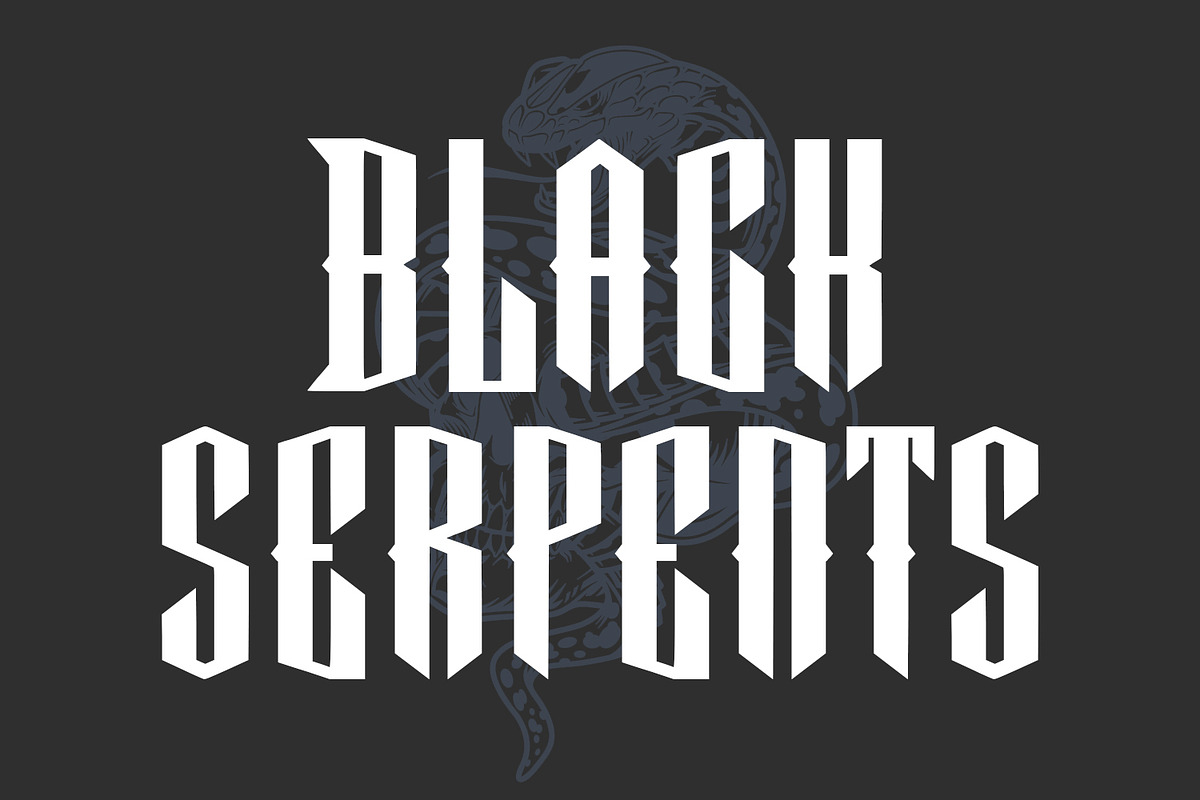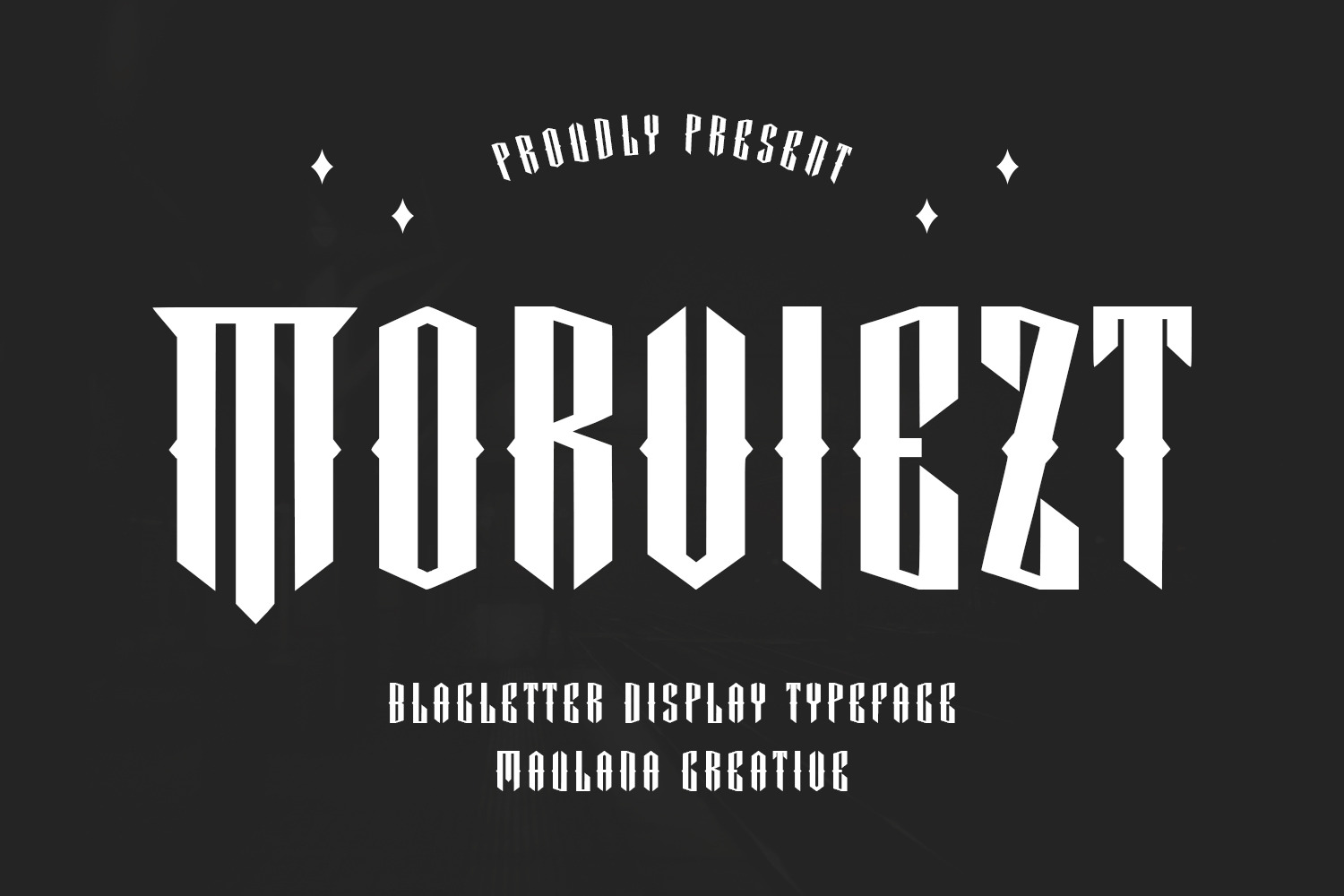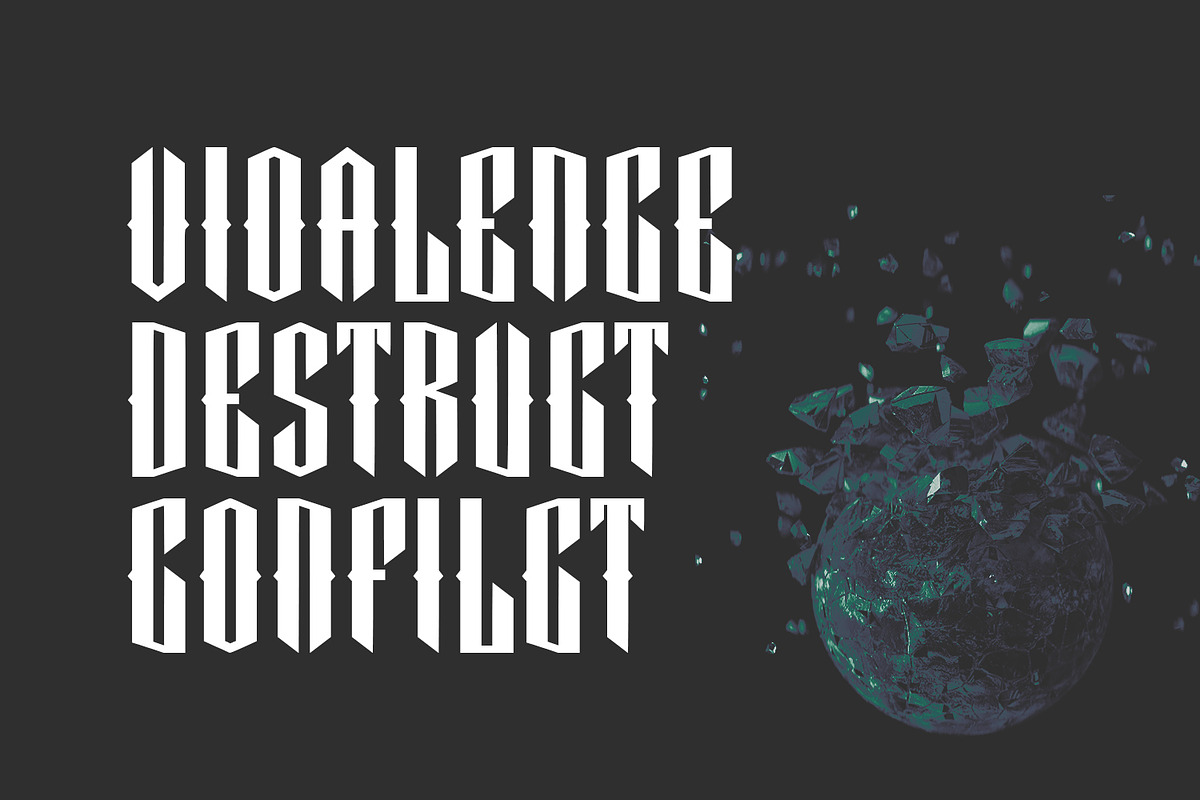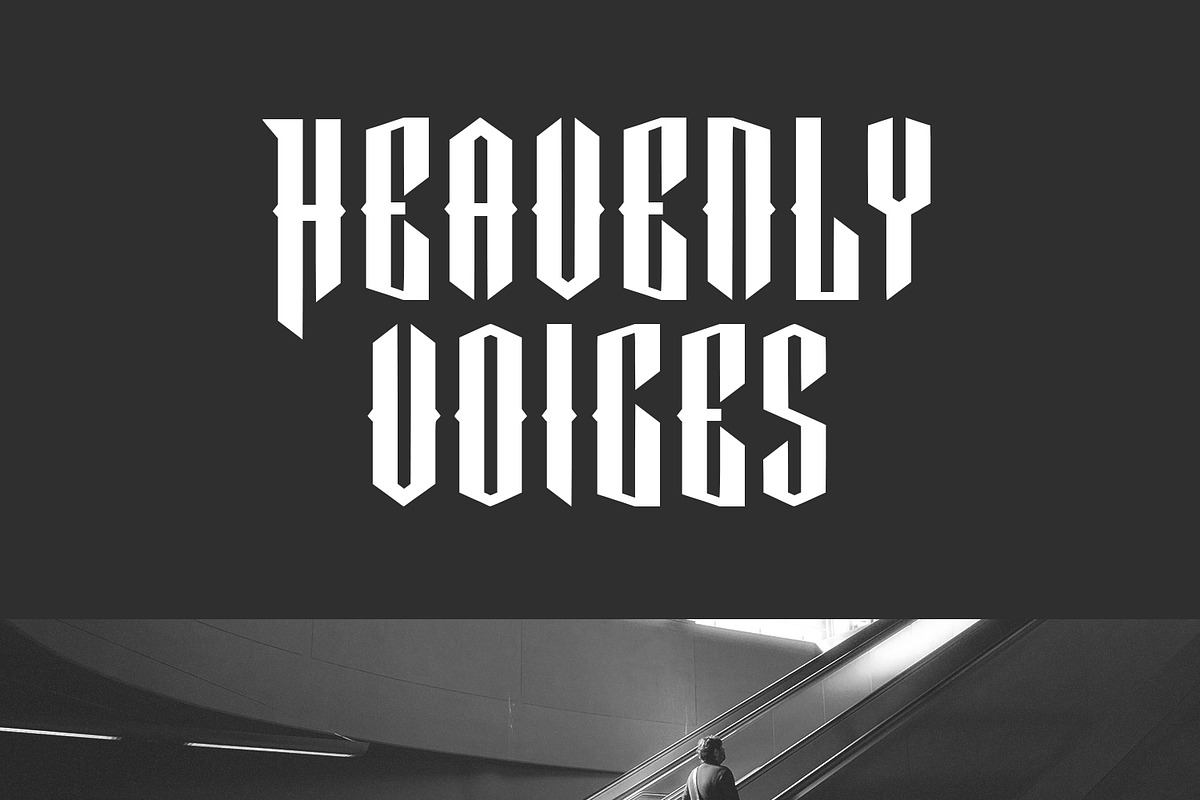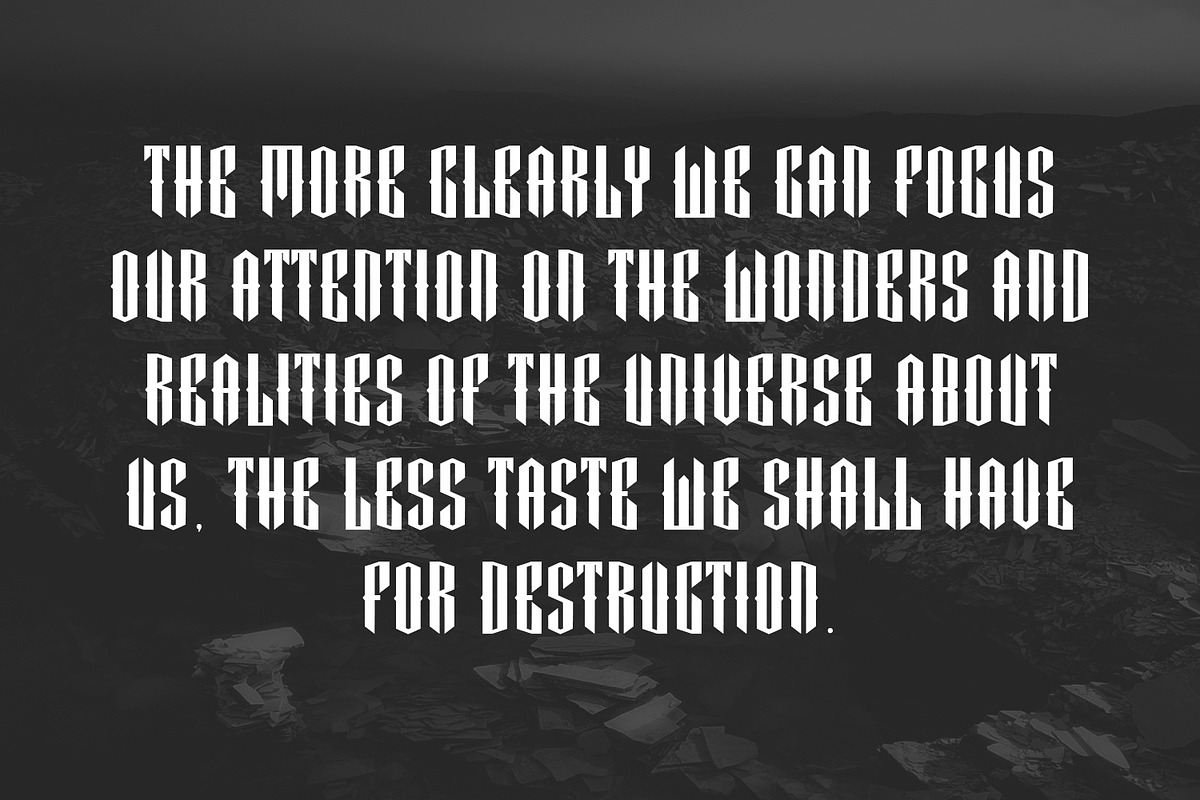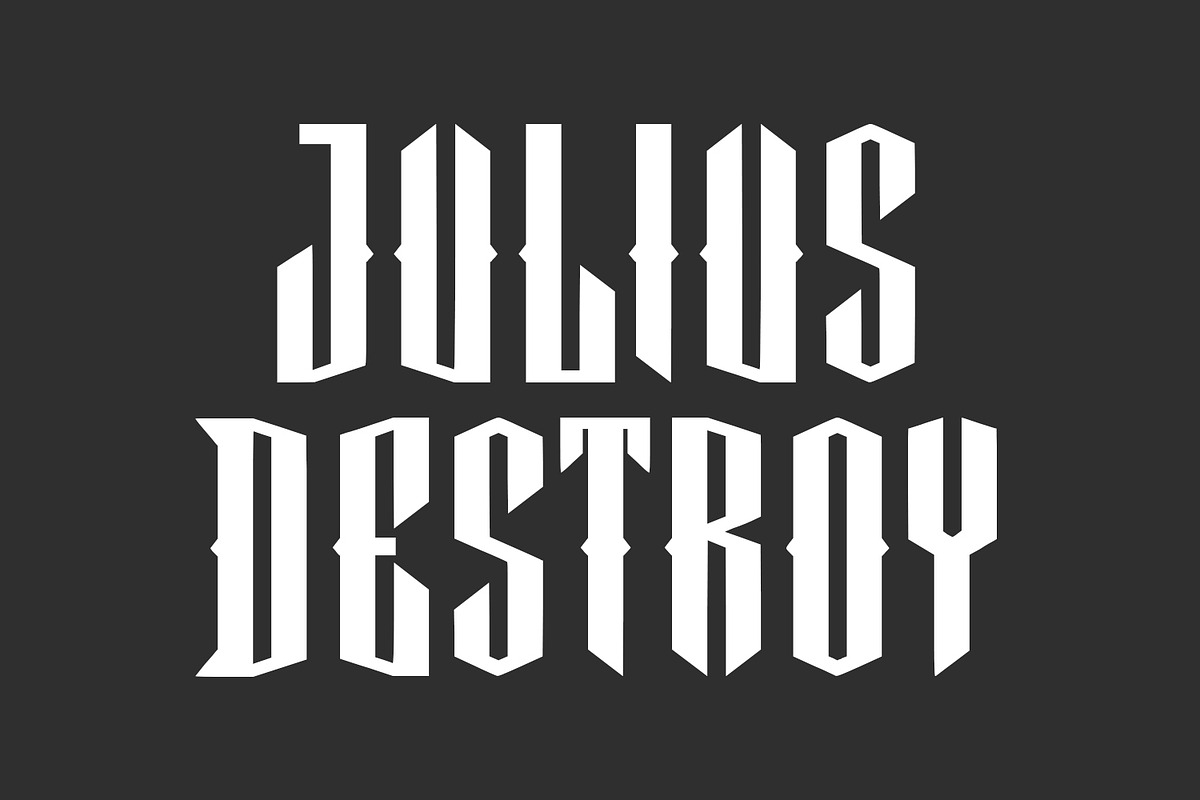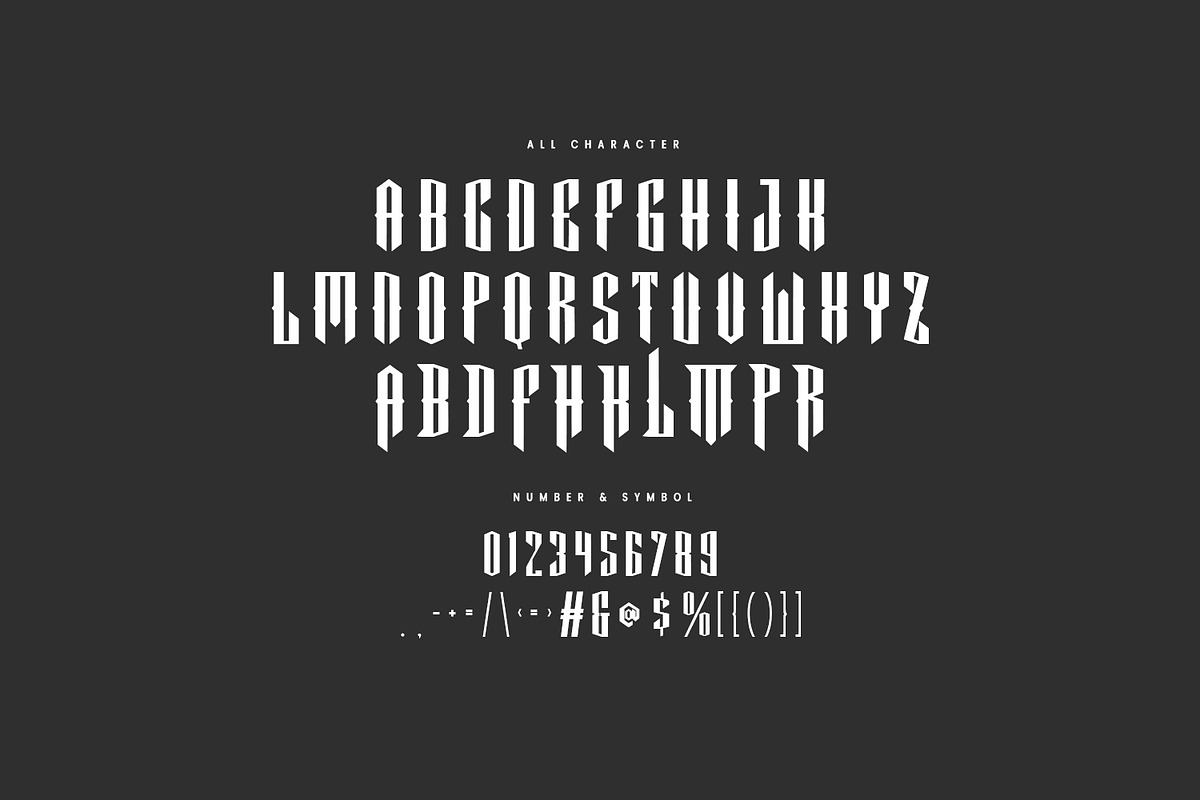
Morviezt Blackletter Display Font
Morviezt blackletter display typeface. Heavy stroke, fun character with a bit of ligatures. To give you an extra creative work. Morviezt blackletter display typeface support multilingual more than 100+ language. This font is good for logo design, Social media, Movie Titles, Books Titles, a short text even a long text letter and good for your secondary text font with script or serif. Make a stunning work with Morviezt blackletter display typeface.